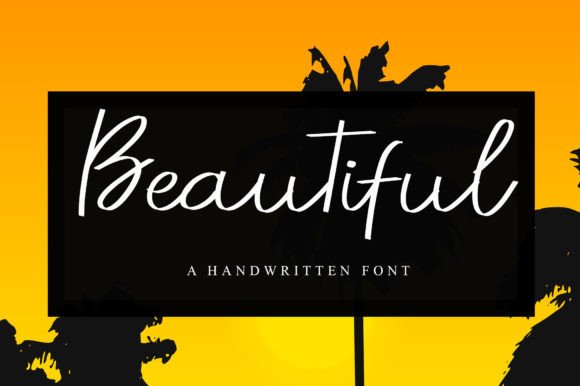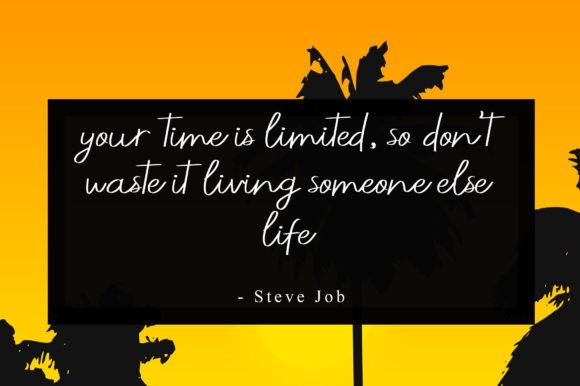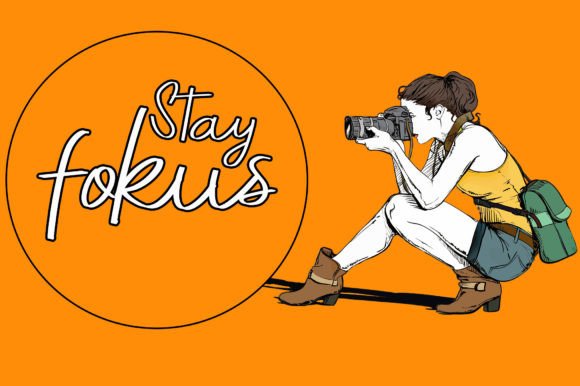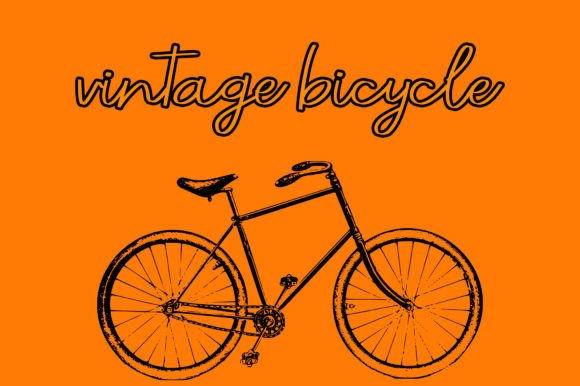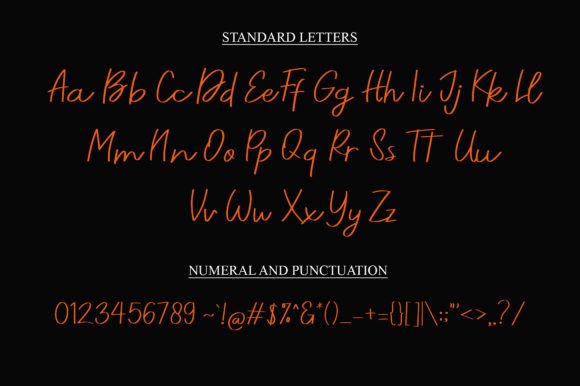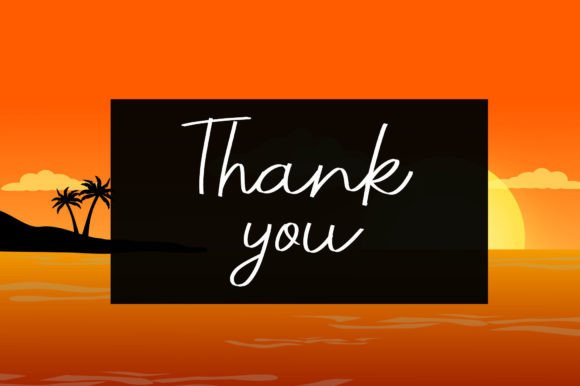
Beautiful Font
About Beautiful Font
“Beautiful” is a fun and bold handwritten font that exudes a sense of impeccable friendliness. This font is designed to bring a cheerful and approachable vibe to your design projects, making it suitable for a wide range of creative endeavors.
One of the standout qualities of “Beautiful” is its bold and playful characters. These characters are crafted to communicate a sense of warmth and friendliness, making the font a fantastic choice for projects where a welcoming and inviting tone is desired.
Whether you’re working on crafts, digital design, presentations, or greeting cards, “Beautiful” can easily become your go-to font for various occasions. Its versatility is one of its key strengths, as it adapts well to different design needs.
With “Beautiful” in your font collection, you have a lively and friendly tool that can uplift your designs and engage your audience. It serves as a reminder of how typography can convey emotions and set the tone for your creative work.
In summary, “Beautiful” is a fun and bold handwritten font that radiates friendliness and approachability. Its playful characters make it suitable for a wide range of design projects, from crafts to digital design and more. “Beautiful” is a font that brings a cheerful and welcoming vibe to any occasion.